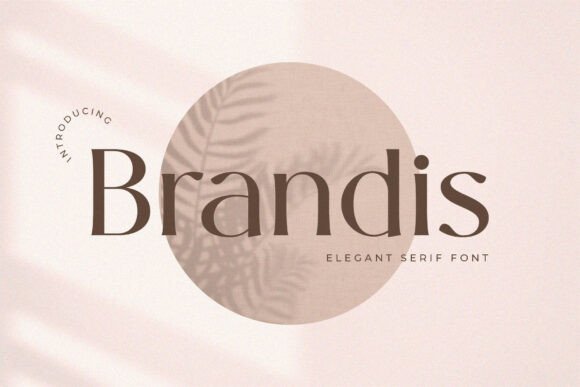
I still remember the countless hours I spent searching for the ideal font for a client’s luxury brand project. The goal was to convey elegance, sophistication, and a touch of modernity. As I scrolled through font after font, I couldn’t help but feel like I was stuck in a never-ending loop of sameness. That was until I stumbled upon Brandis, a refined and elegant serif font that instantly caught my attention.
First Impressions: What Makes Brandis Special
Brandis is more than just a font – it’s a statement piece. With its sleek curves, balanced contrast, and sharp serifs, it’s perfect for creating timeless designs that exude luxury and sophistication. Whether you’re working on branding, editorial layouts, logo design, packaging, wedding stationery, or high-end marketing materials, Brandis is sure to impress.
- ✨ Elegant and refined design: Brandis boasts a sophisticated look that’s perfect for high-end projects.
- ✅ Excellent readability: The font’s clear and balanced design makes it easy to read, even in smaller sizes.
- 💡 Versatile: Brandis works beautifully in both headlines and body text, making it a great all-around choice.
- 🎨 OpenType features: The font comes with a range of OpenType features, including stylistic alternates and glyphs, which can be used to add an extra layer of creativity to your designs.
- 🤔 Some letters may require manual kerning: As with any font, some letters may require manual kerning to achieve optimal results.
- ⚠️ Limited availability of certain characters: Some characters, such as ligatures, may be limited or require additional installation.
The Story Behind Brandis: Designer Inspiration
Brandis was designed with the goal of creating a font that embodies both modern luxury and classic charm. The designer drew inspiration from traditional serif fonts, while incorporating modern elements to create a unique and distinctive personality. The result is a font that’s both elegant and refined, perfect for creating timeless designs.
| Font Name | Brandis Font |
| Author | BrandSemut |
A: Brandis works beautifully in a variety of design applications, including branding, editorial layouts, logo design, packaging, wedding stationery, and high-end marketing materials.
Q: Can I use Brandis for body text?
A: Yes, Brandis is suitable for body text, thanks to its clear and balanced design.
Q: Does Brandis come with OpenType features?
A: Yes, Brandis comes with a range of OpenType features, including stylistic alternates and glyphs.
Q: Is Brandis suitable for use in digital applications?
A: Yes, Brandis is optimized for use in digital applications, including websites, social media, and email marketing.